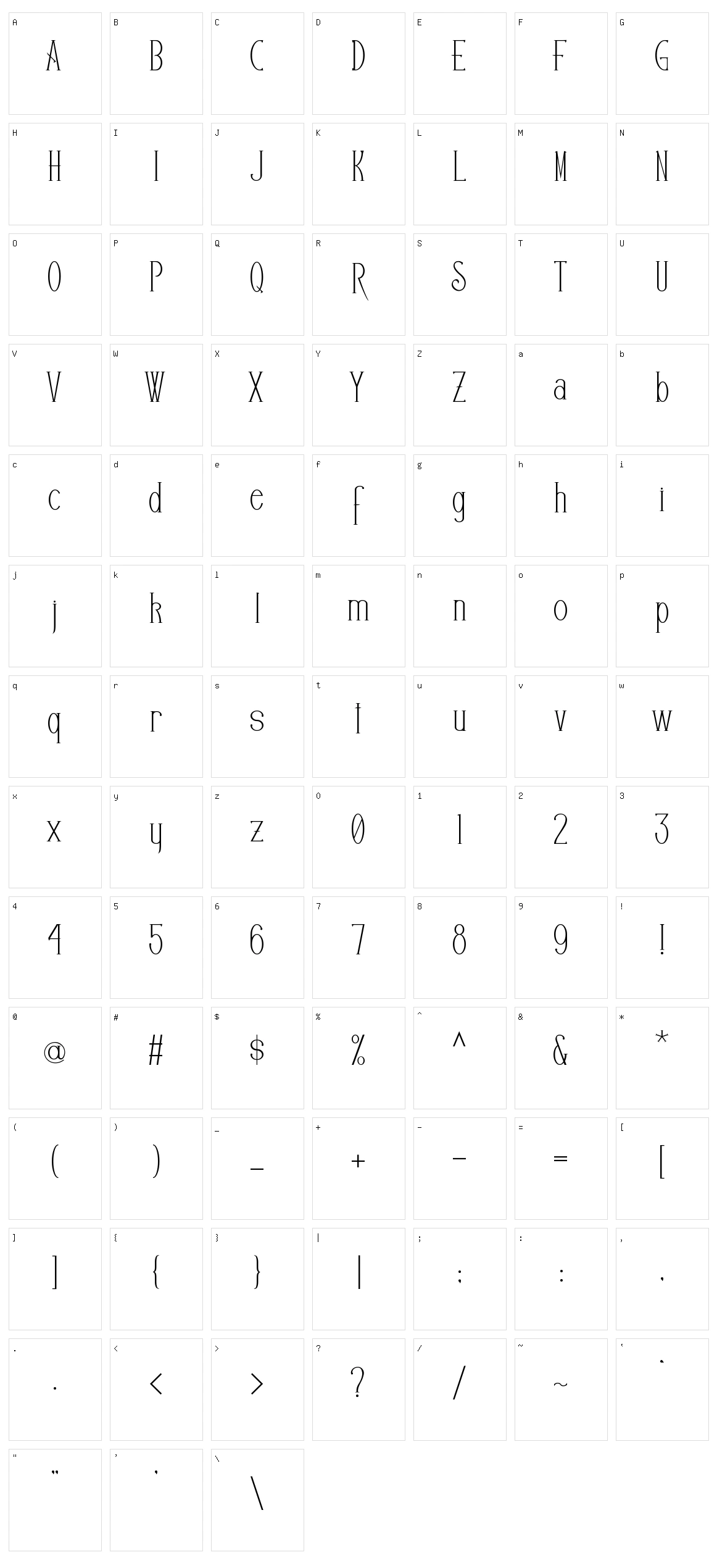
EDITORS is a narrow, dreamy, serif font with a nostalgic feeling, a touch of gothic and sharp edges that prove it's all about the details. It all started from the word "EDITORS" and then I thought it would be such a pity if I wouldn't go further.